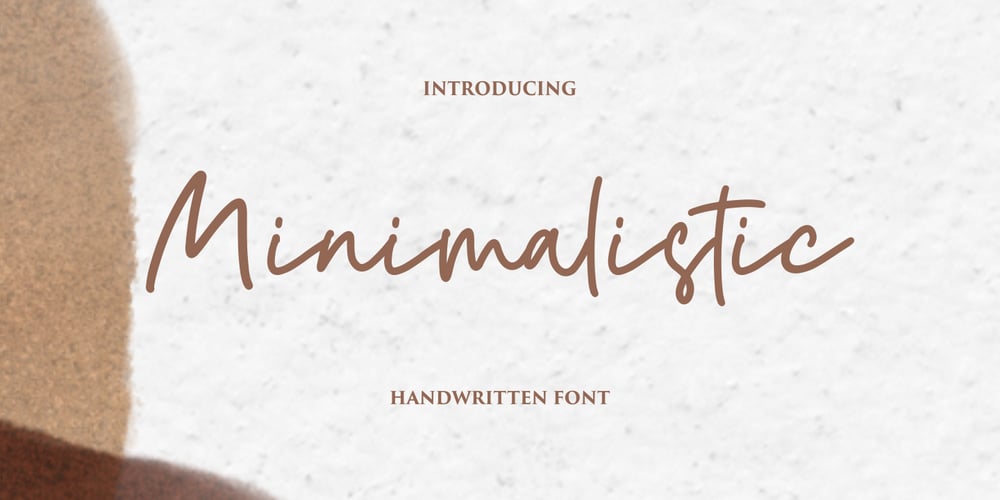
Minimalistic Font Family was designed by Muhammad Fikry and published by Fikryal. Minimalistic contains 1 styles and family package options. Minimalistic is a beautiful script font perfect for crafting, branding, invitation, stationery, wedding designs, social media posts, advertisements, product packaging, product designs, label, photography, watermark, special events, or anything.Minimalistic with a full set of uppercase and lowercase letters, ligatures, multilingual symbols, numerals, and punctuation.